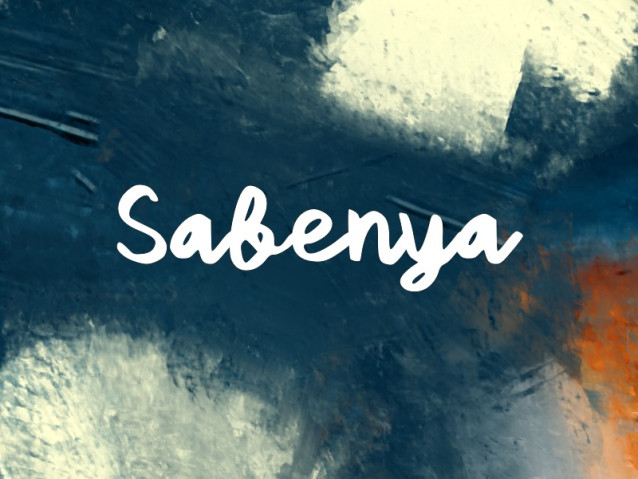
Sabenya Font
Sabenya Font is a simple and modern Script font suitable for quotes, logos, headings, titles, and many more. Use it on any of your creative projects, and your designs will become outstanding!
Classification: Modern Fonts, Script Fonts